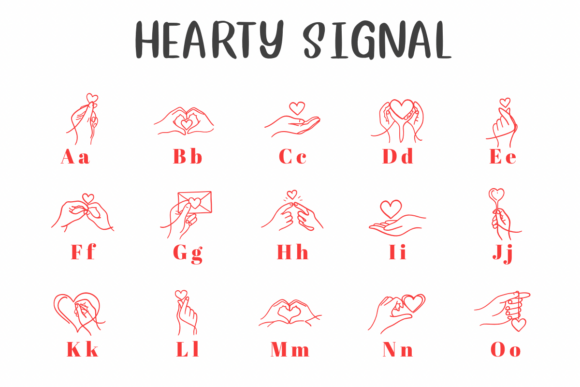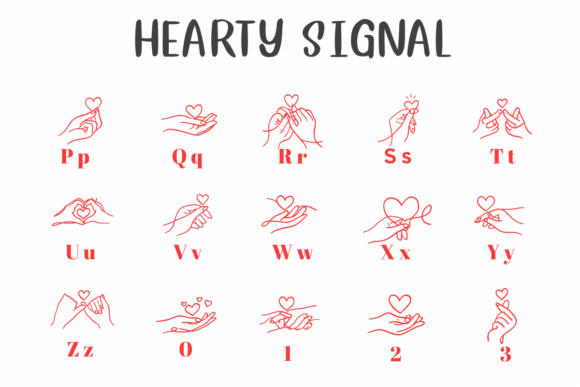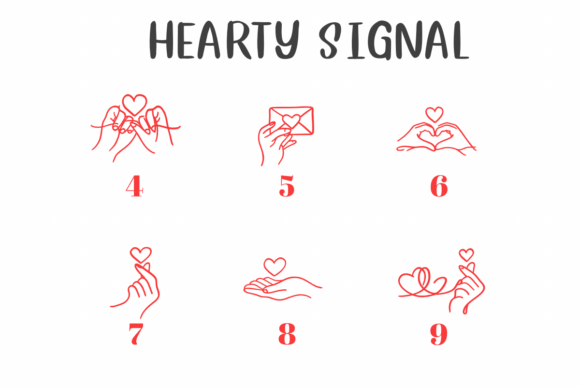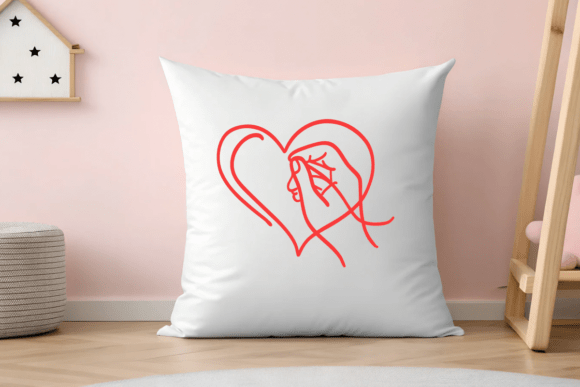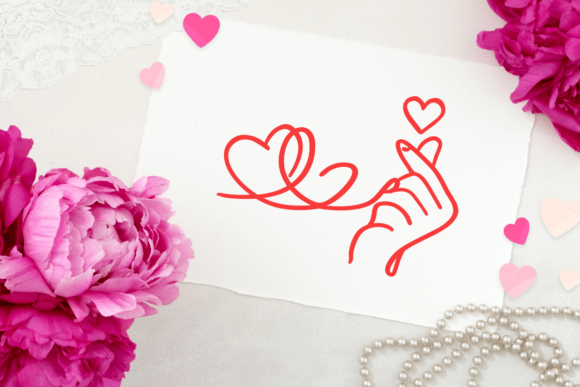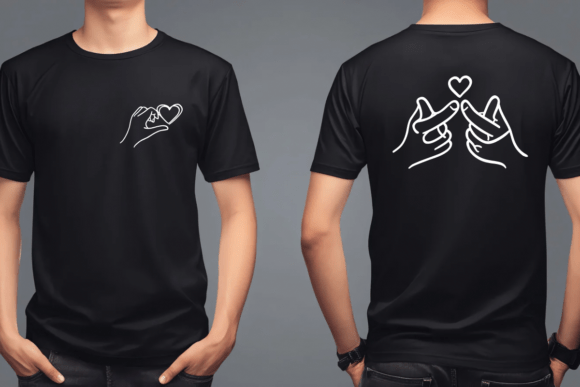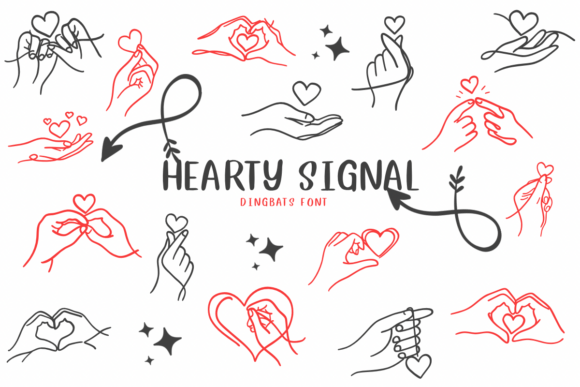
Introducing Hearty Signal Font: The Fun Dingbats Font to Elevate Your Creative Projects
Are you a designer, crafter, or DIY enthusiast looking for a unique and fun font to add a personal touch to your projects? Look no further than Hearty Signal Font! This delightful dingbats font is designed to bring a smile to your face and inspire your creativity. In this article, we’ll explore the features and benefits of Hearty Signal Font, and show you how to make the most of this exciting new font in your creative endeavors.
What is Hearty Signal Font?
Hearty Signal Font is a carefully crafted dingbats font that features a collection of charming and whimsical symbols, icons, and illustrations. Each character in the font is designed to be both visually appealing and highly versatile, making it perfect for a wide range of creative projects, from handmade crafts and DIY signs to digital graphics and marketing materials.
Key Features of Hearty Signal Font
• Unique and Fun Designs: Hearty Signal Font features a range of unique and fun designs that are sure to add a touch of personality to your projects.
• Highly Versatile: The font includes a wide range of symbols, icons, and illustrations that can be used in a variety of creative contexts.
• Scalable: The font is highly scalable, allowing you to use it in projects of all sizes, from small icons to large signs and banners.
How to Use Hearty Signal Font in Your Creative Projects
Hearty Signal Font is a versatile font that can be used in a wide range of creative projects. Here are a few ideas to get you started:
• Handmade Crafts: Add a personal touch to your handmade crafts, such as cards, gift tags, and scrapbook pages, with Hearty Signal Font.
• DIY Signs: Use Hearty Signal Font to create eye-catching DIY signs for your home, garden, or business.
• Digital Graphics: Incorporate Hearty Signal Font into your digital graphics, such as social media graphics, blog posts, and email newsletters.
• Marketing Materials: Use Hearty Signal Font to add a touch of personality to your marketing materials, such as brochures, flyers, and business cards.
Tips and Tricks for Getting the Most Out of Hearty Signal Font
Here are a few tips and tricks to help you get the most out of Hearty Signal Font:
• Experiment with Different Sizes and Colors: Don’t be afraid to experiment with different sizes and colors to find the perfect combination for your project.
• Combine with Other Fonts: Combine Hearty Signal Font with other fonts to create a unique and visually appealing design.
• Use in Combination with Images: Use Hearty Signal Font in combination with images to add an extra layer of meaning and visual interest to your project.
Hearty Signal Font is a fun and versatile dingbats font that’s perfect for designers, crafters, and DIY enthusiasts looking to add a personal touch to their creative projects. With its unique and whimsical designs, highly scalable and easy-to-use format, and wide range of creative applications, Hearty Signal Font is sure to become a favorite in your creative toolkit. So why wait? Download Hearty Signal Font today and start adding a touch of heart and personality to your creative projects!